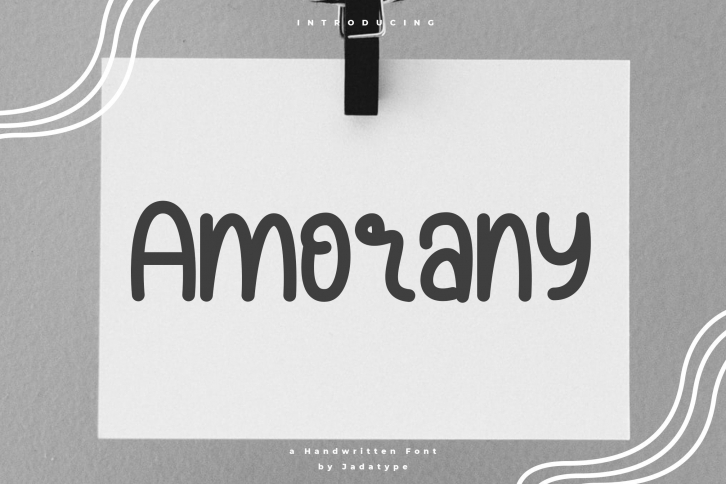
Amorany is a handwriting font with Monoline lines. gives the impression of natural, simple, friendly, and comfortable to see. can be used for your designs, social media, print writing, crafts, and others. contains standard English letters, number – punctuation, and some ligatures. can be installed in applications such as adobe family or affinity.